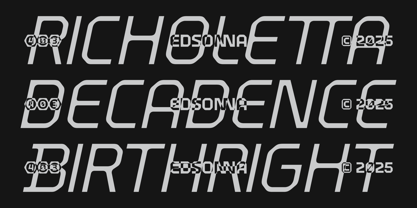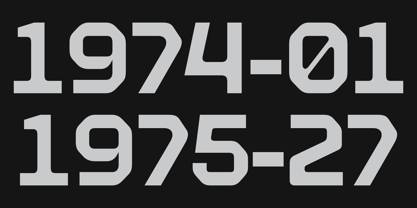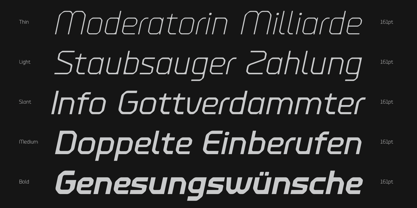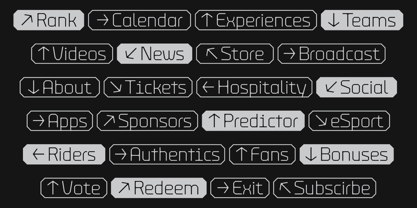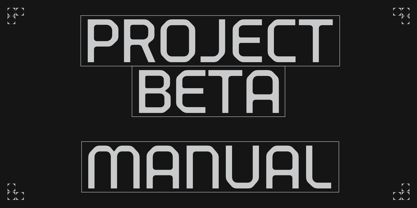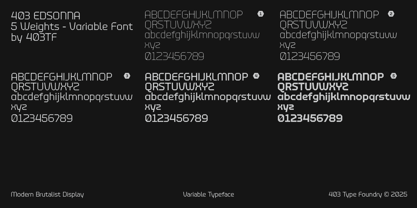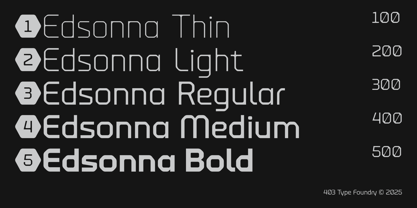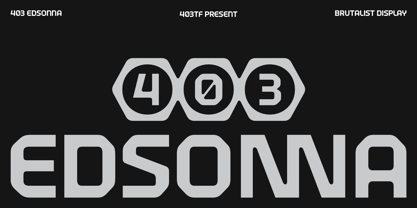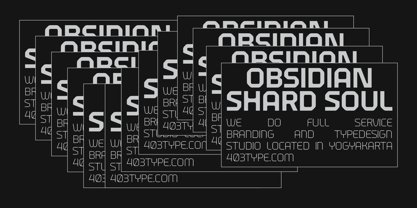
403 Edsonna
by 403TF
The 403 Edsonna Font Family was designed by Umar Al Farouq, Jodi El Ghazi, Febri Riansah and published by 403TF. 403 Edsonna contains 10 styles and family package options. More about this family
403 Edsonna is a high-octane, variable typeface engineered for the intersection of industrial utility and radical modernism. It is a font that does not just sit on a page; it constructs an environment. With its modular structure and aggressive technical detailing, Edsonna is the definitive choice for designers who need to convey authority, precision, and a forward-leaning "Obsidian" aesthetic. From dense information displays to high-impact street-wear branding, it provides the structural backbone for designs that demand to be read with intent. The character of 403 Edsonna is rooted in "Technical Brutalism." Its philosophy centers on the beauty of the machine, drawing inspiration from terminal data streams, logistics labeling, and architectural schematics. Visually, it stands out through its squared-off terminals and wide, cinematic stance, creating a rhythm that feels both calculated and monolithic. Whether set in the razor-sharp Thin weight for complex UI or the massive Bold for headline dominance, Edsonna maintains a cold, sophisticated elegance that feels right at home in a thriving independent design scene or on a global stage. Edsonna is built for the "New Industrial" era. It is the perfect engine for UI/UX specialists building futuristic dashboards, editorial designers crafting brutalist layouts, and brand identity systems for automotive or tech-apparel companies. Its ability to remain legible while packed into tight informational grids, such as flight arrivals or project manuals, makes it a functional workhorse. Simultaneously, its slanted "Oblique" styles and distinctive glyph shapes offer the expressive flair needed for music festival posters, vinyl sleeves, and high-end merchandise. Feature Breakdown 5 Versatile Weights Regular & Slanted Styles Massive Language Support Over 692 glyphs per weight Standard ligatures Stylistic alternates Fraction Equip your creative toolkit with a typeface built for the future of information. Download 403 Edsonna and start building today.
Designers: Umar Al Farouq, Jodi El Ghazi, Febri Riansah
Foundry: 403TF